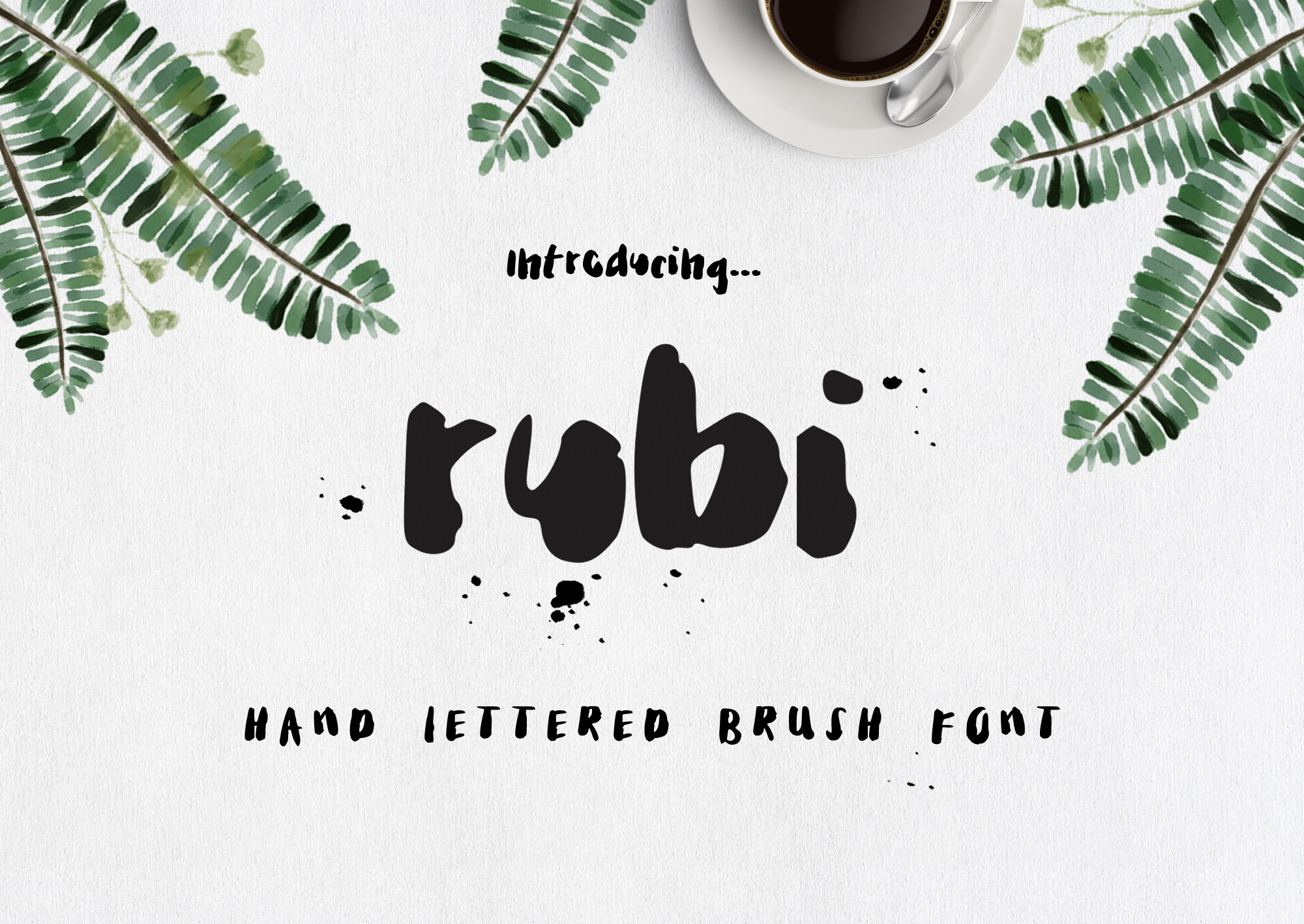
Rubi Ink Brush Font
Introducing Rubi ink brush font! Bold, bubbly, stylish and loads of fun. Perfect for greeting cards, invites, branding, stationary and lots more!
Rubi comes in uppercase and lowercase with 31 add-on elements and ornaments for your projects! Comes with reference PDF for add-ons.
Find your favourite quote, play around with font sizes, words and add-on elements to create type based cards, pretty poster's or framed prints.